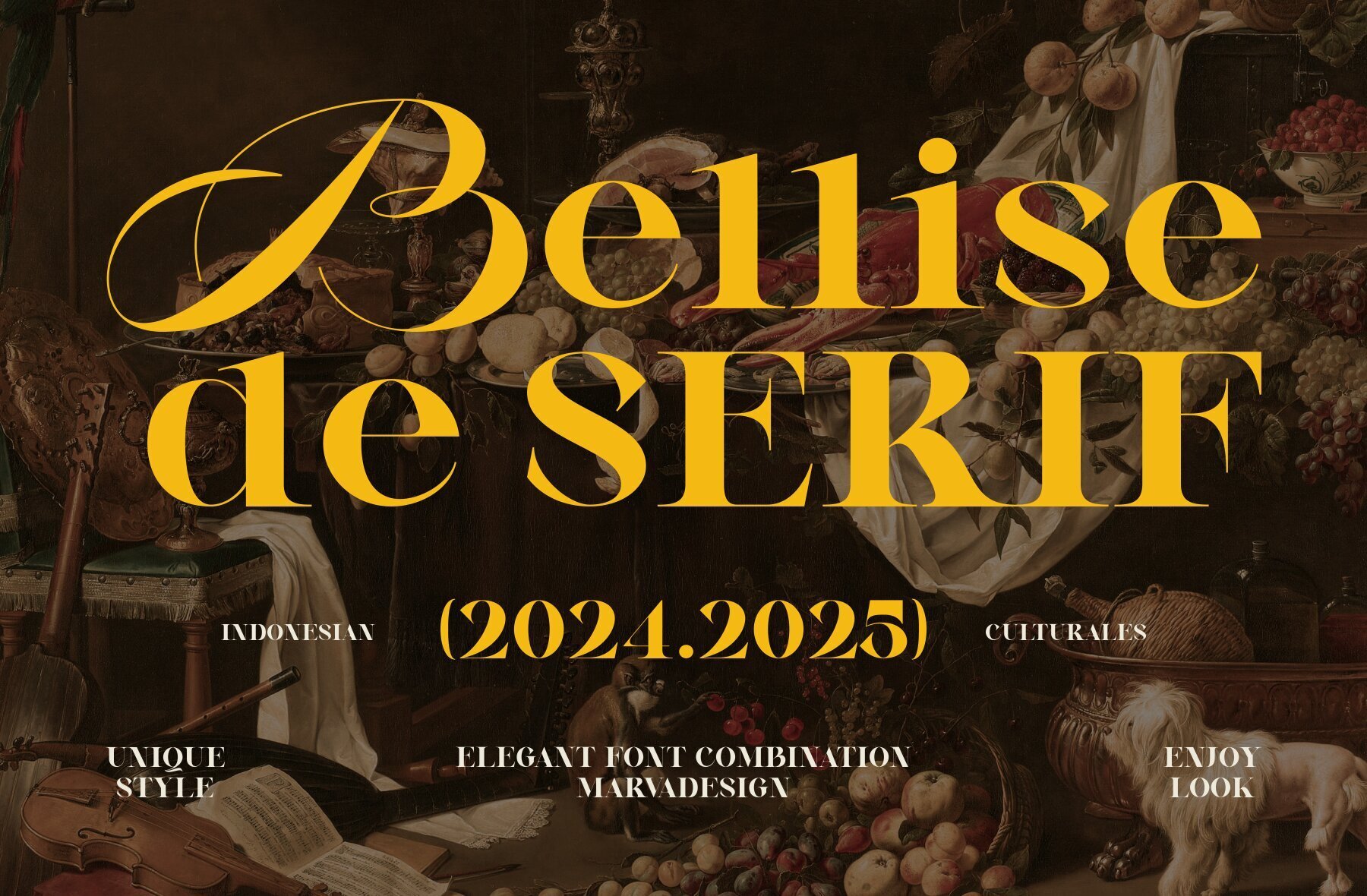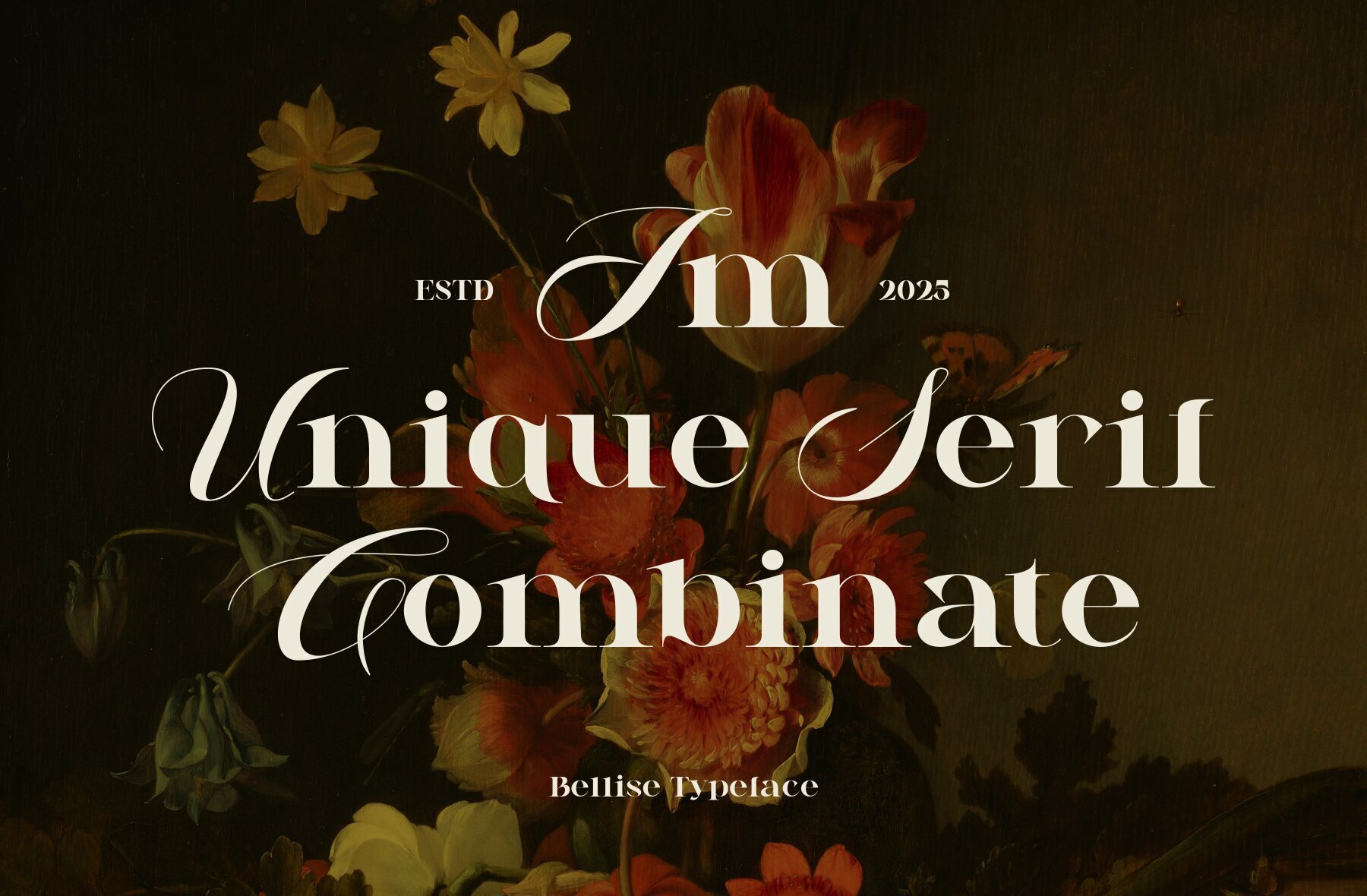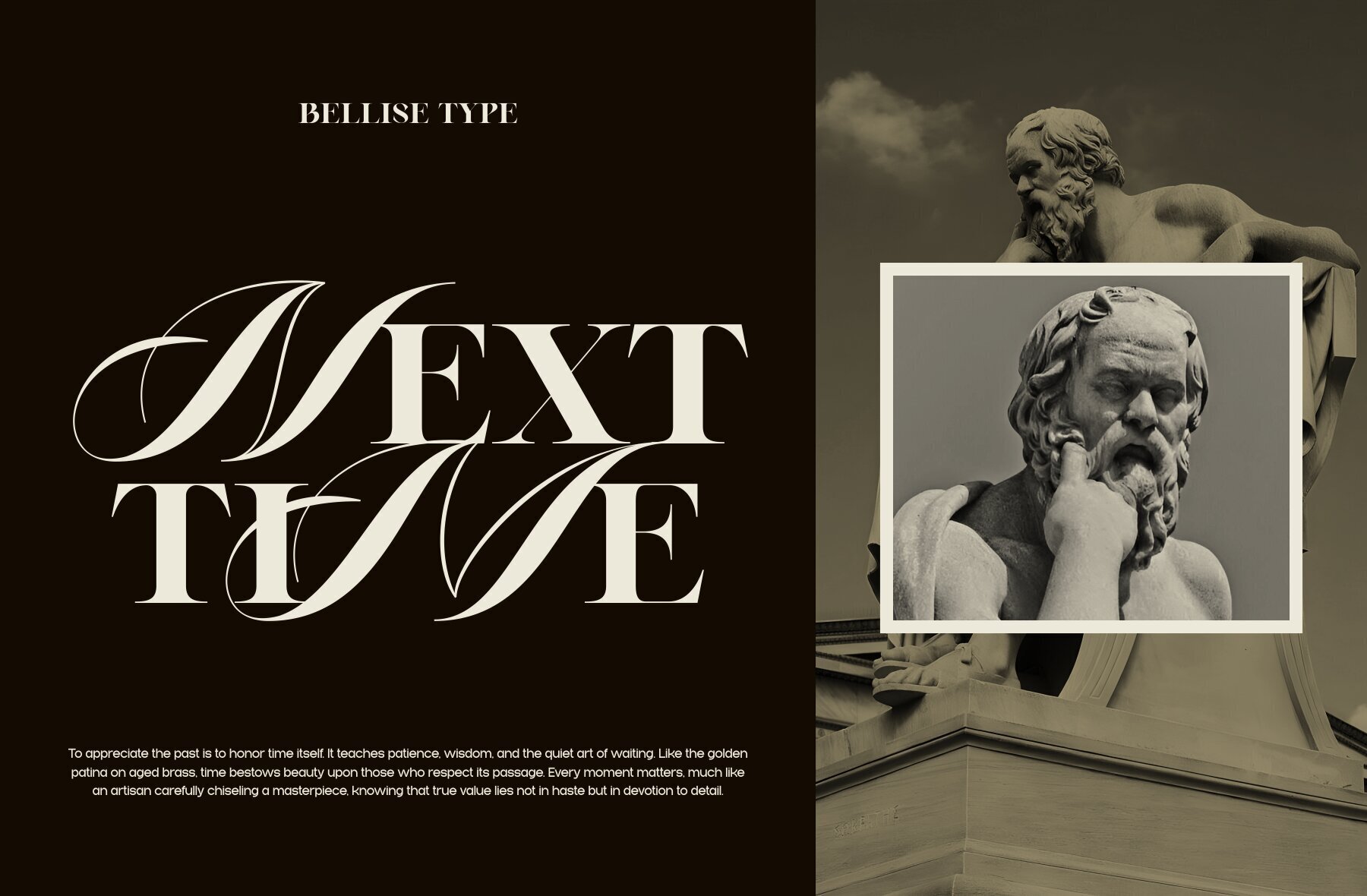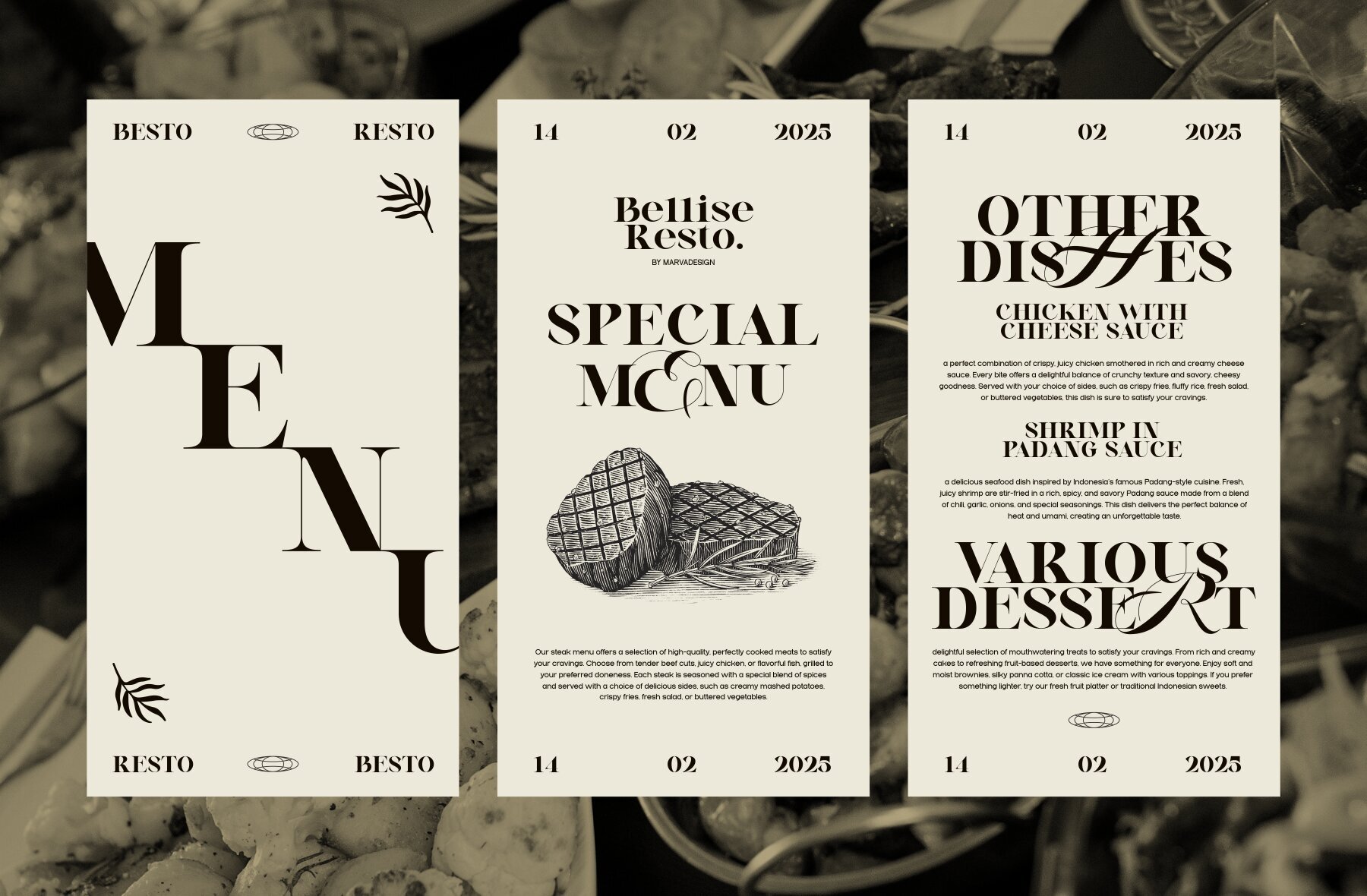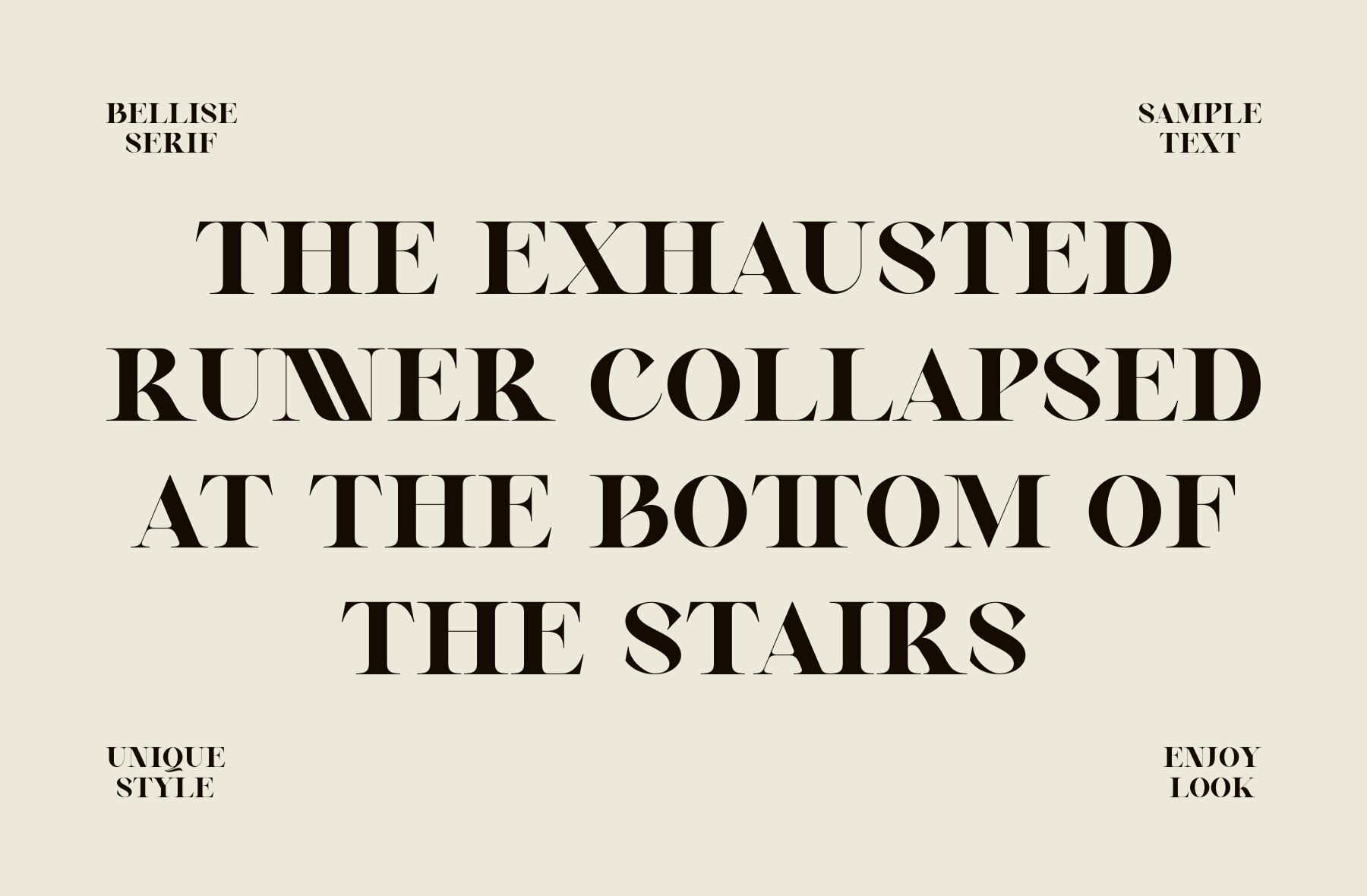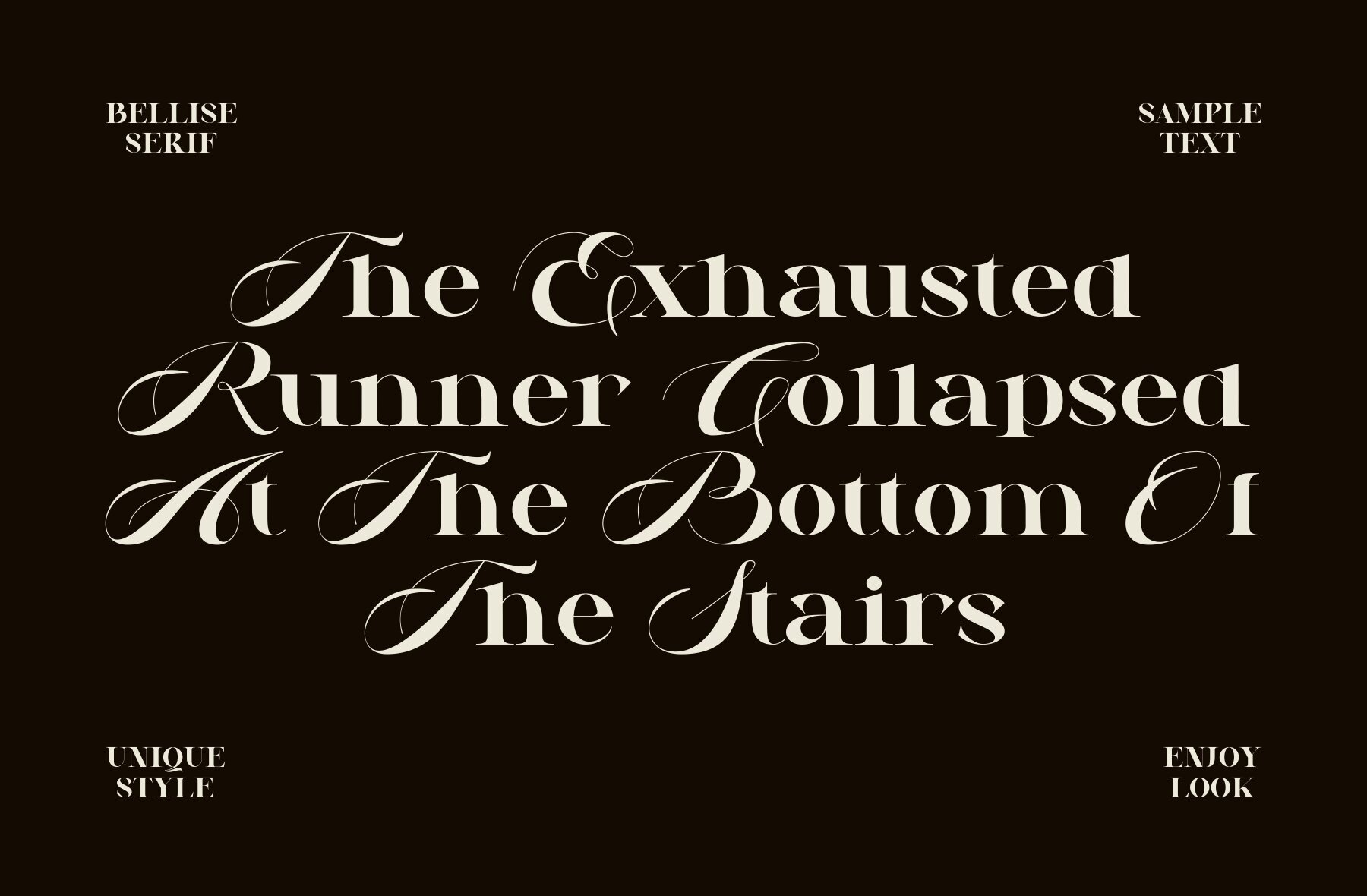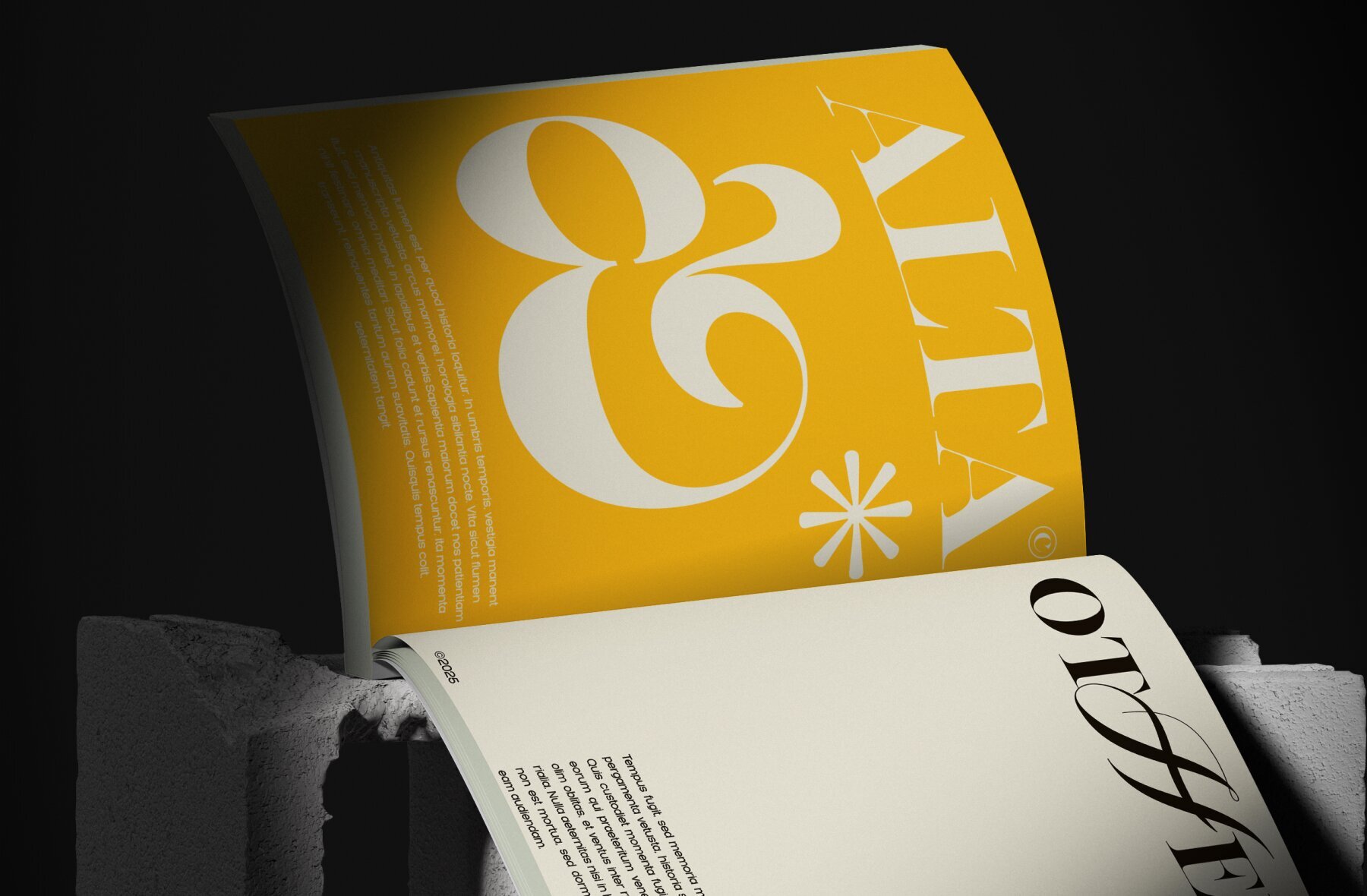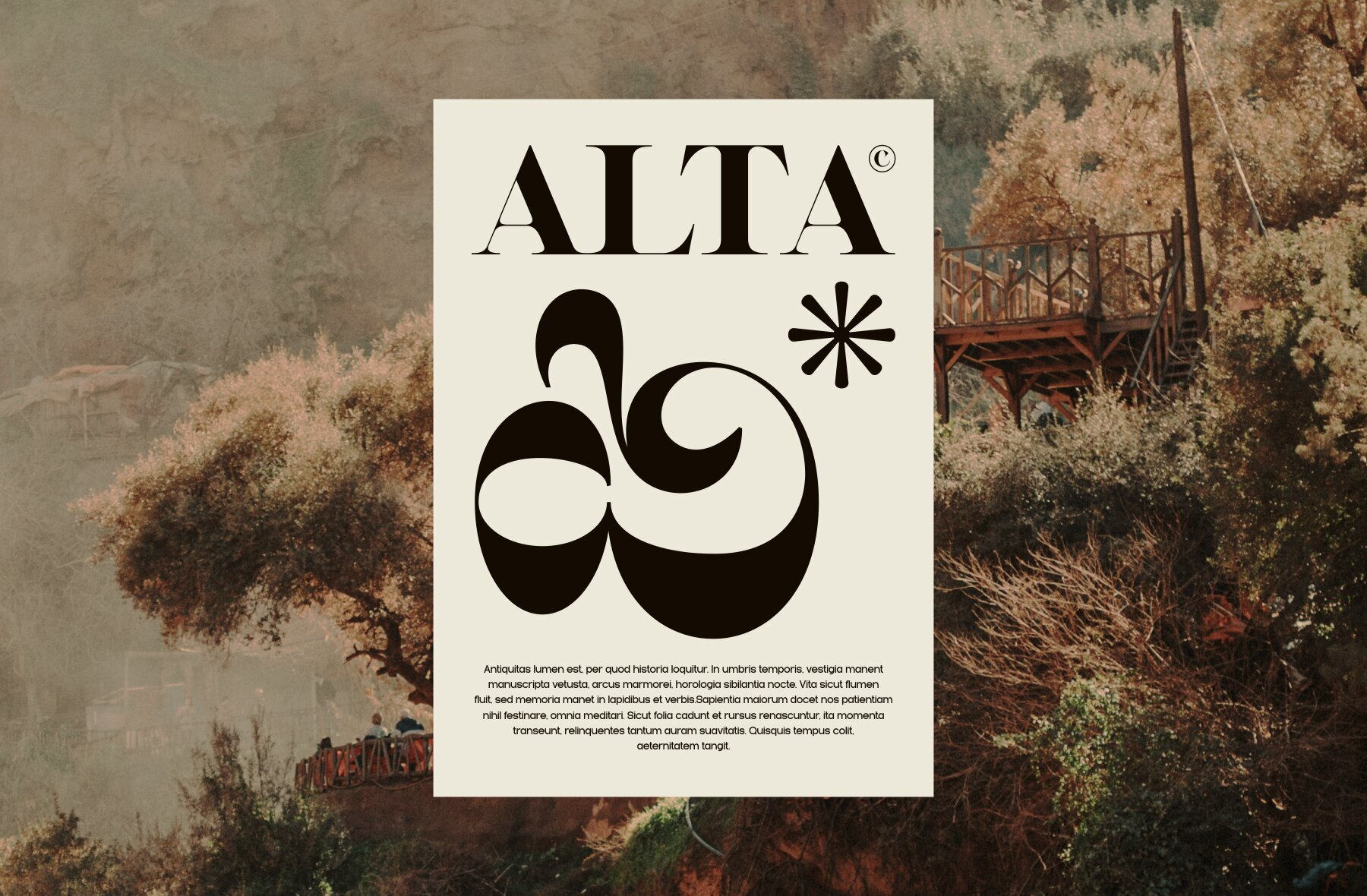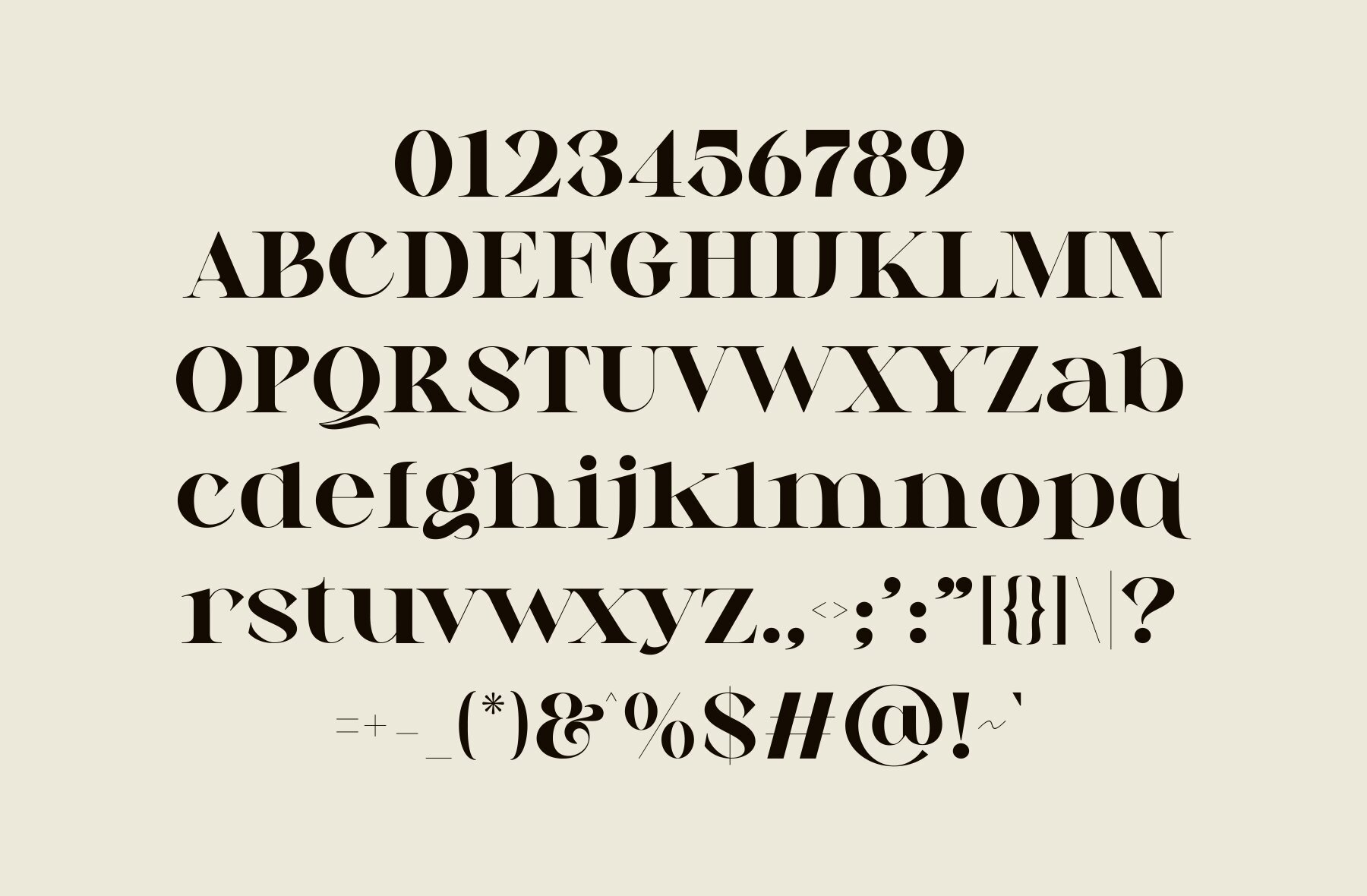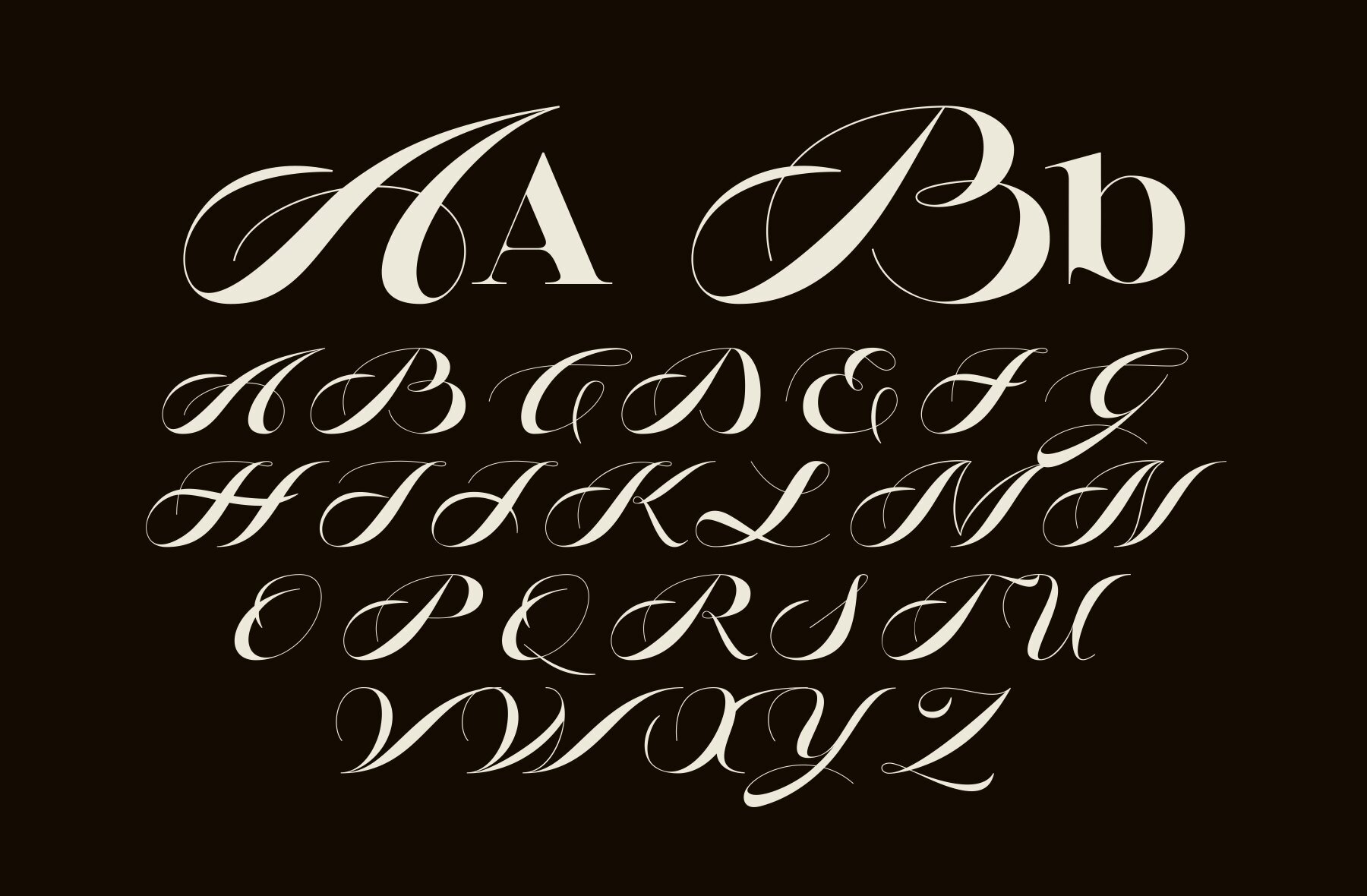
Bellise Font
Bellise
Introducing Bellise, an elegant serif typeface that seamlessly blends classic serif sophistication with the fluid grace of uppercase script. This unique combination delivers a font that is both bold and expressive, offering a harmonious balance between structured formality and artistic flair. The serif components provide a strong, classical foundation, while the uppercase script infuses an elegant, calligraphic touch, adding movement and character to your designs.
Designed with luxury branding, editorial design, and high-end visual compositions in mind, Bellise is perfect for projects that require a timeless aesthetic. Its high contrast strokes, graceful curves, and refined ligatures make it an excellent choice for applications demanding both elegance and a commanding presence. Whether featured on magazine covers, packaging, or fashion-related projects, Bellise provides a unique typographic experience that marries tradition with modern sophistication.